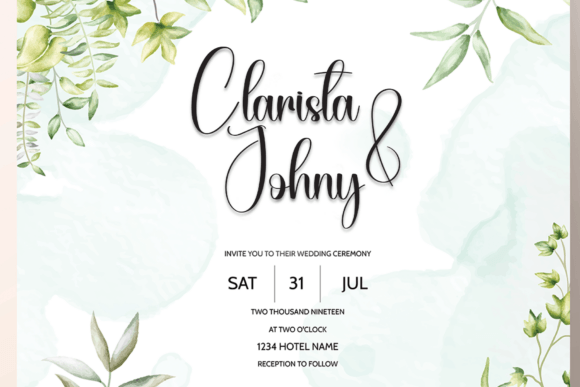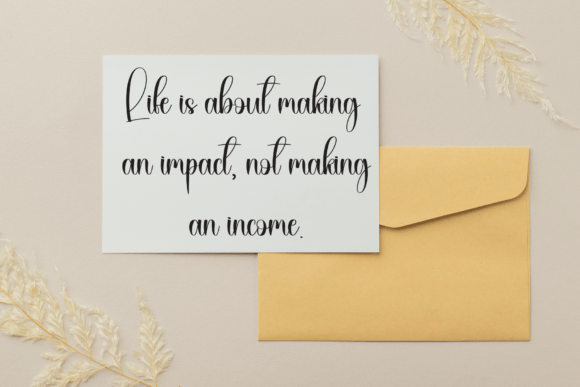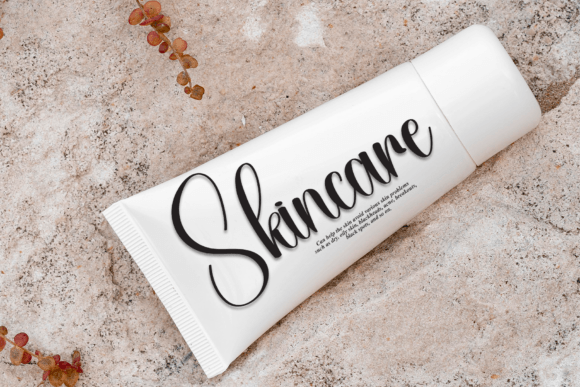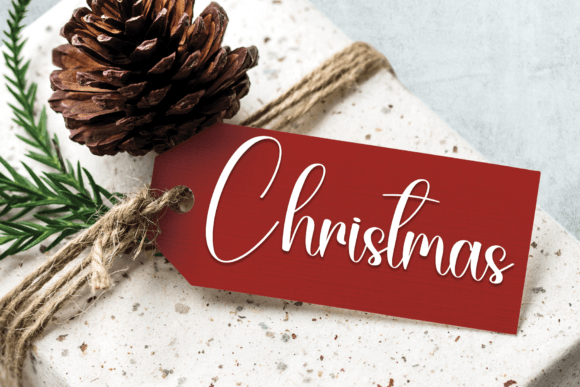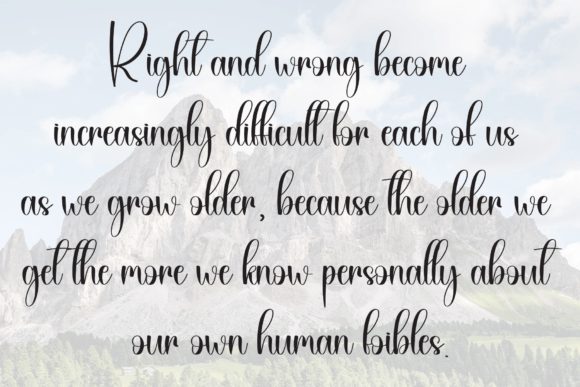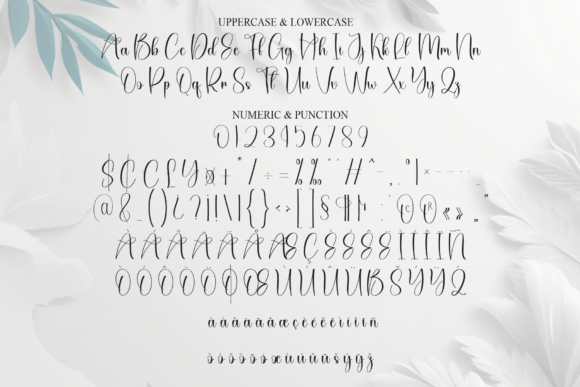
Introducing Alphabet Font: The Bold Script Font for Modern Design
Are you looking for a font that makes a statement? Look no further than Alphabet Font, a bold script font that exudes style and sophistication. With its thick and flowing letters, Alphabet Font is perfect for designers and crafters who want to add a touch of modernity to their work.
What is Alphabet Font?
Alphabet Font is a type of script font that features bold, cursive letters with a strong and stylish look. Its unique design makes it stand out from other fonts, making it perfect for headlines, titles, and other design elements that require a bit of flair. Whether you’re working on a logo, brochure, or website, Alphabet Font is sure to make a lasting impression.
Key Features of Alphabet Font
- Bold and Stylish: Alphabet Font features thick and flowing letters that give it a lively and modern feel.
- Strong Letterforms: The font’s letters are designed to be strong and sturdy, making it perfect for use in headlines and titles.
- Easy to Read: Despite its bold design, Alphabet Font is easy to read, making it perfect for use in body text as well.
- Versatile: Alphabet Font can be used in a variety of design applications, from logos and brochures to websites and social media graphics.
Uses of Alphabet Font
Alphabet Font is a versatile font that can be used in a variety of design applications. Here are some ideas to get you started:
- Logos and Branding: Use Alphabet Font to create a bold and stylish logo that makes a statement.
- Headlines and Titles: Use Alphabet Font to add a touch of modernity to your headlines and titles.
- Brochures and Flyers: Use Alphabet Font to add visual interest to your brochures and flyers.
- Websites and Social Media: Use Alphabet Font to add a touch of style to your website or social media graphics.
Why Choose Alphabet Font?
There are many fonts to choose from, but Alphabet Font stands out from the rest. Here are just a few reasons why:
- Unique Design: Alphabet Font features a unique design that is sure to make your work stand out.
- High-Quality: Alphabet Font is a high-quality font that is designed to look great in any design application.
Tips for Using Alphabet Font
Here are a few tips for using Alphabet Font in your designs:
- Use it Sparingly: Because Alphabet Font is so bold, it’s best to use it sparingly. Use it for headlines and titles, and a simpler font for body text.
- Experiment with Colors: Alphabet Font looks great in a variety of colors, so don’t be afraid to experiment.
- Pair it with Other Fonts: Alphabet Font pairs well with a variety of other fonts, so try pairing it with a simpler font for a bold and stylish look.
Alphabet Font is a bold script font that is perfect for designers and crafters who want to add a touch of modernity to their work. With its thick and flowing letters, Alphabet Font is sure to make a statement in any design. Whether you’re working on a logo, brochure, or website, Alphabet Font is a great choice. So why wait? Download Alphabet Font today and start creating!